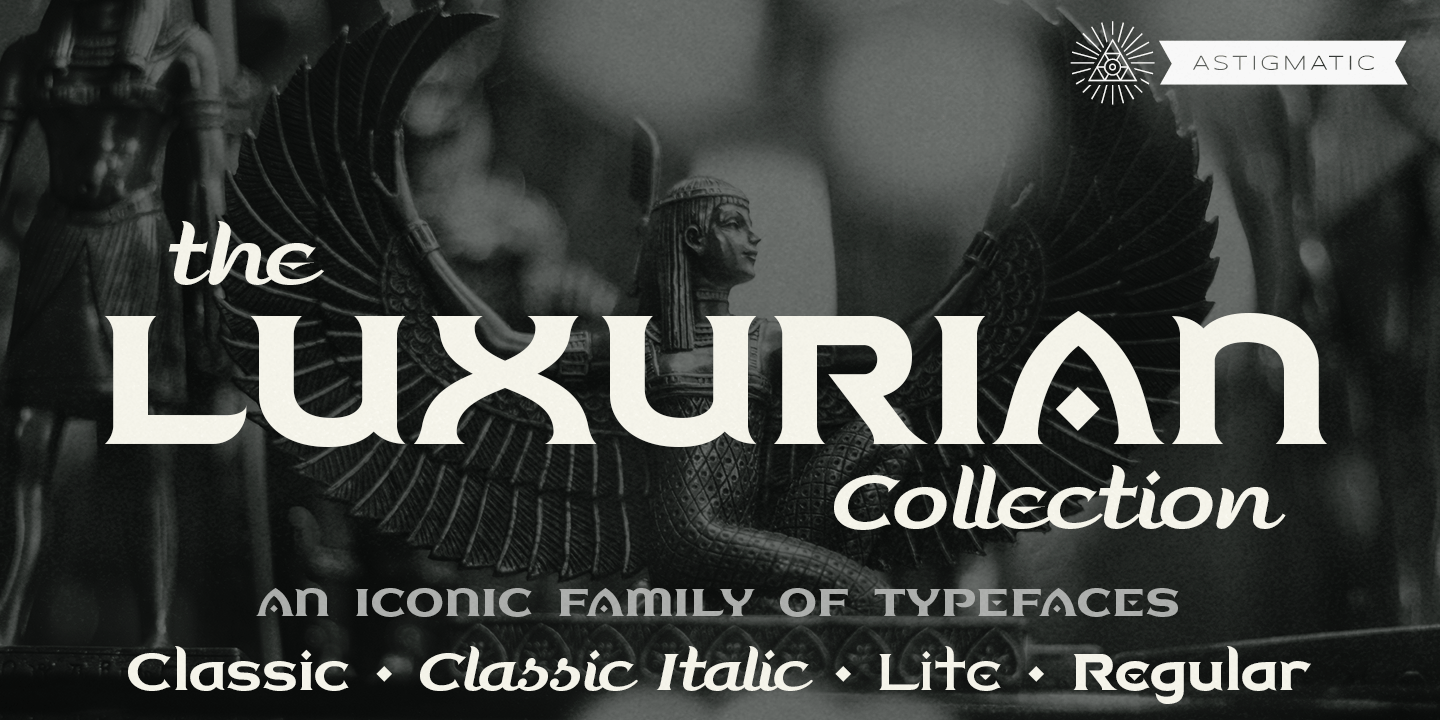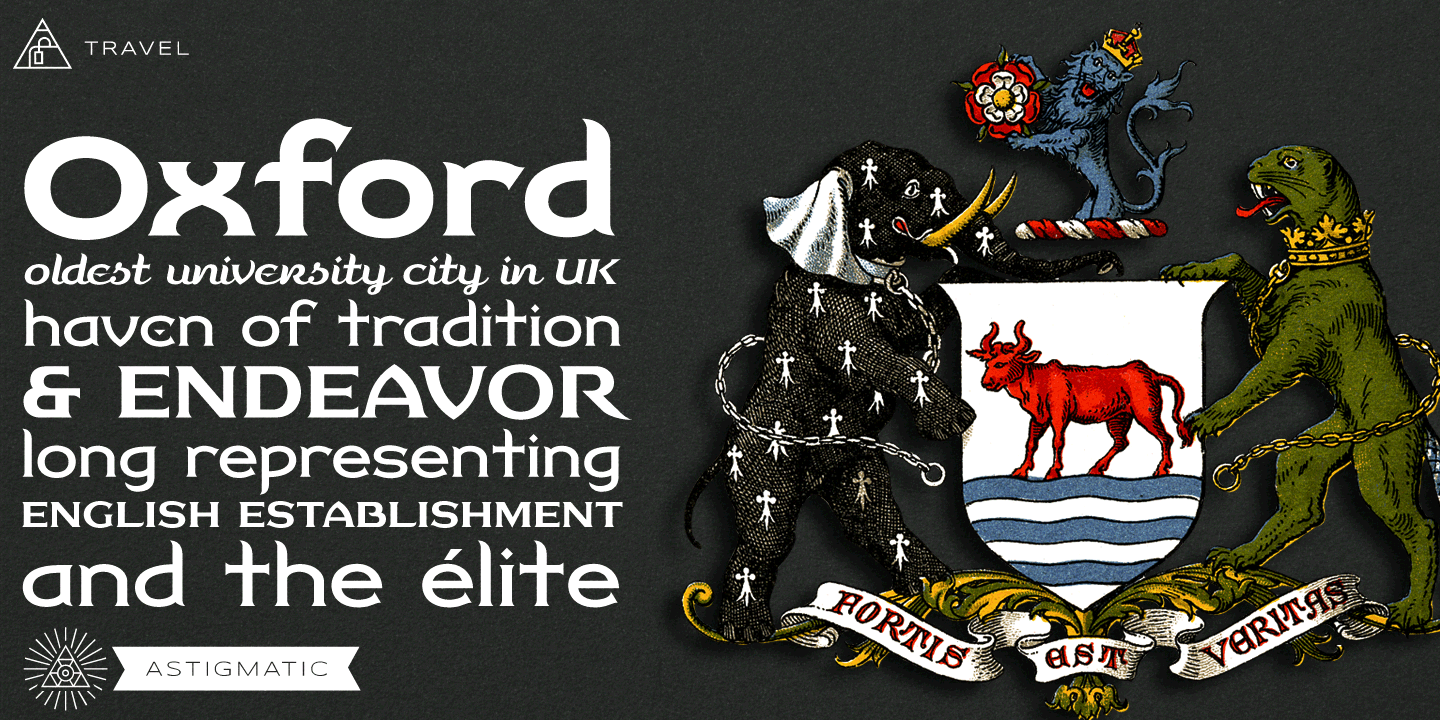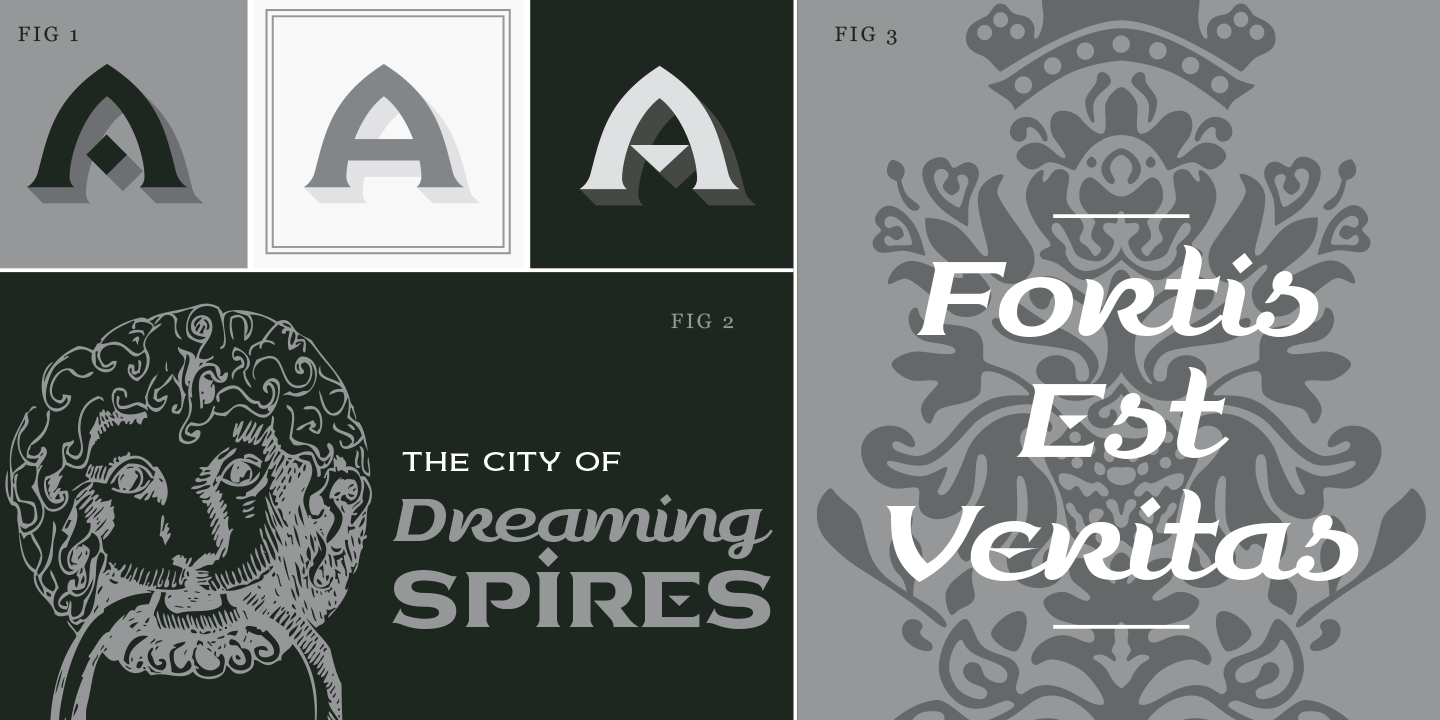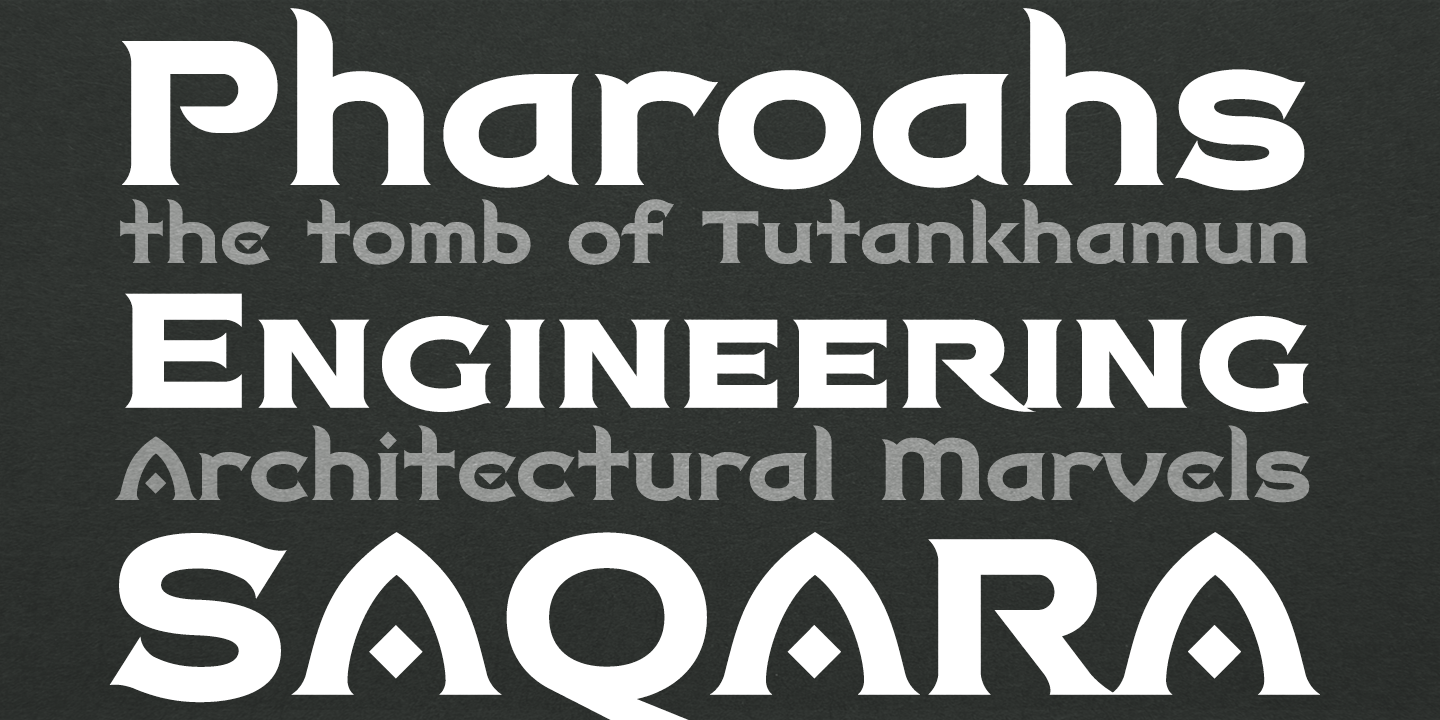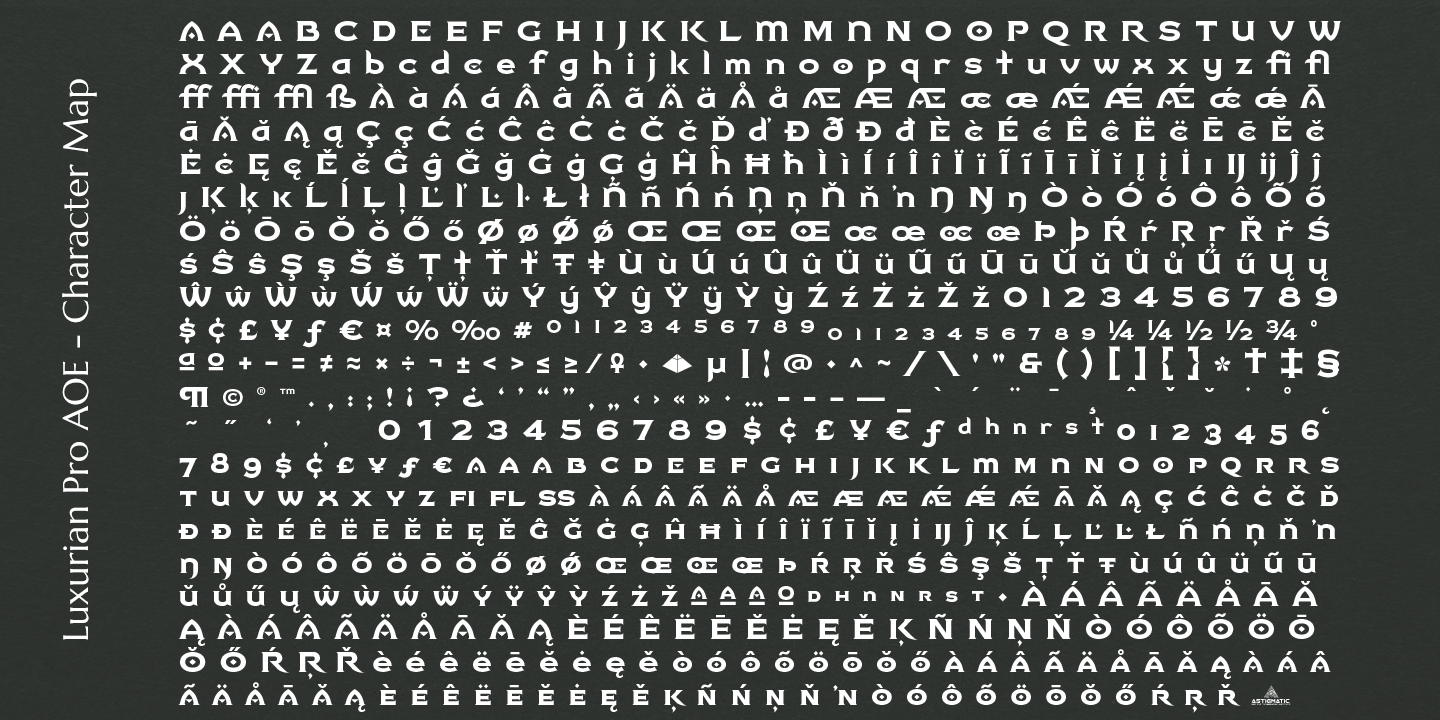
Luxurian
Font Family by Astigmatic One Eye
Inspired by the logo of the Luxor Hotel & Casino in Las Vegas, the Luxurian Lucky 777 Font Collection takes inspiration to a whole new level, creating 7 typestyles which expand and compliment the brand.